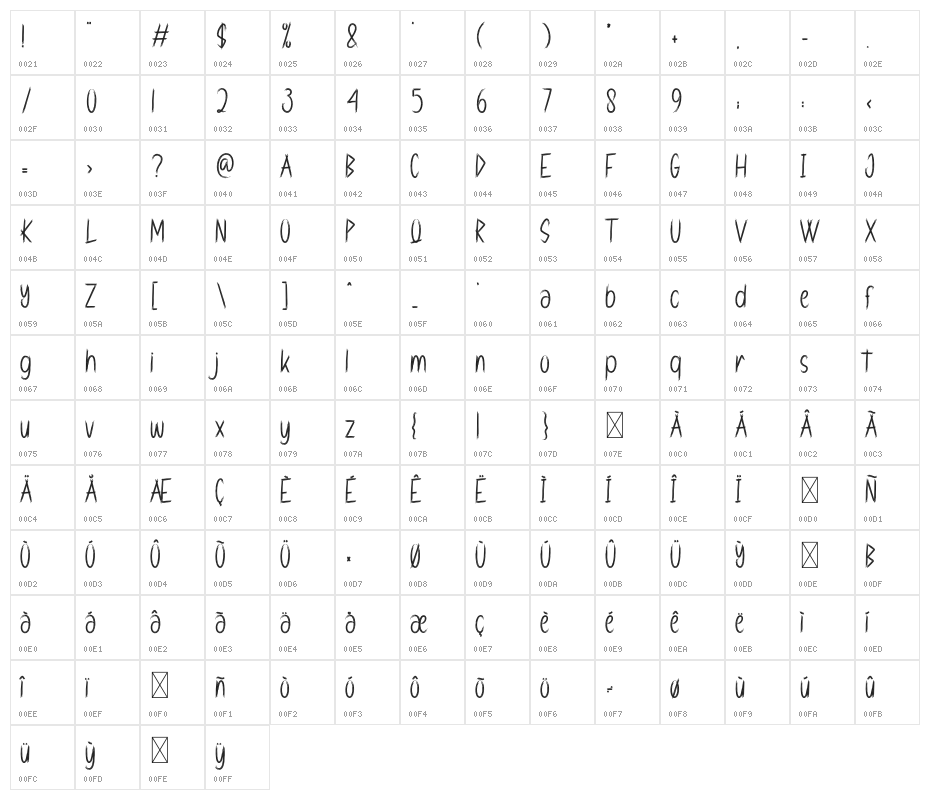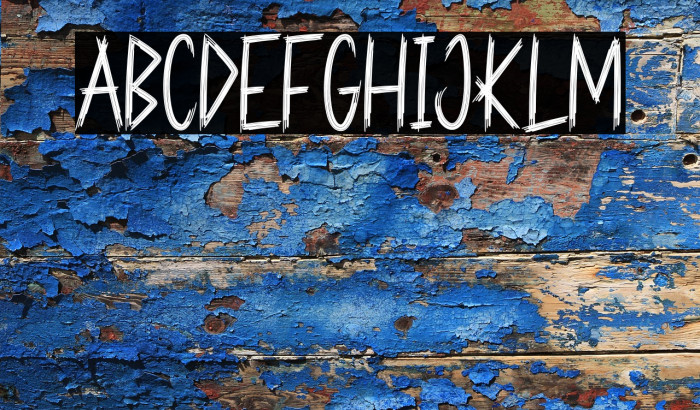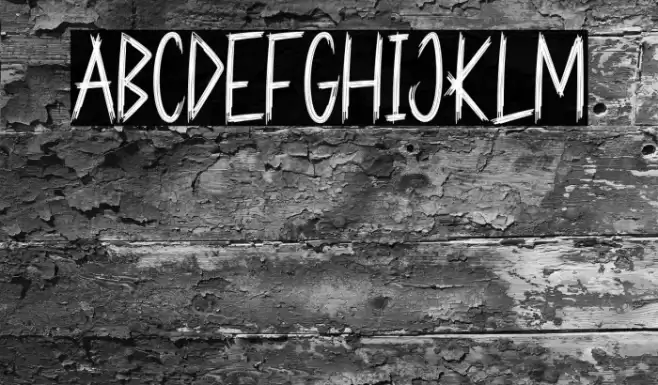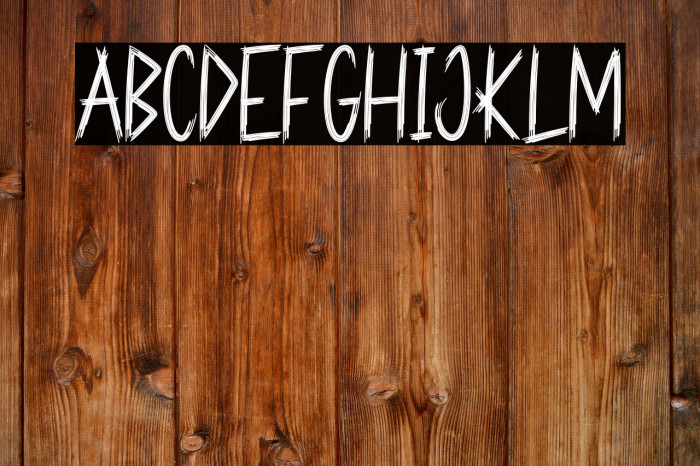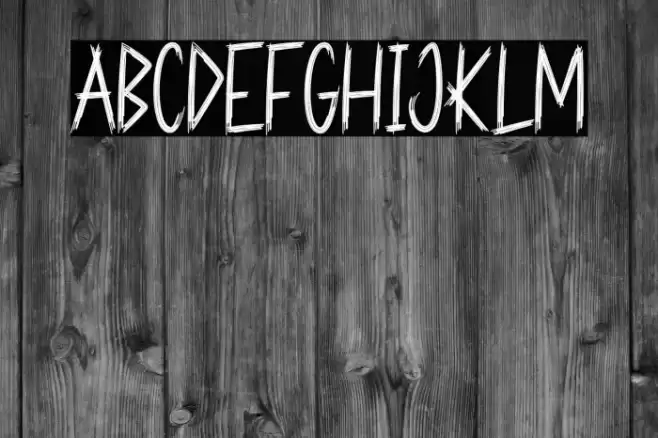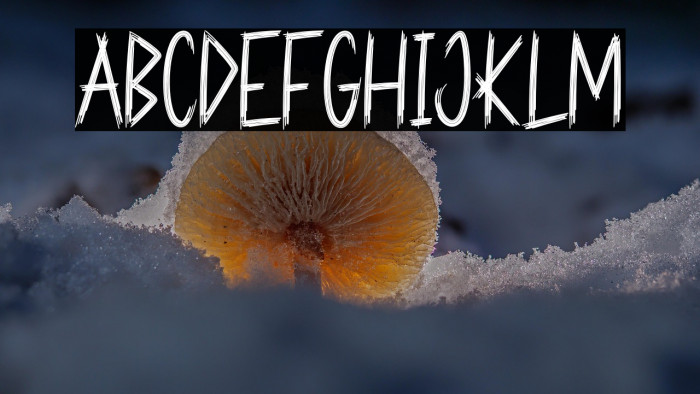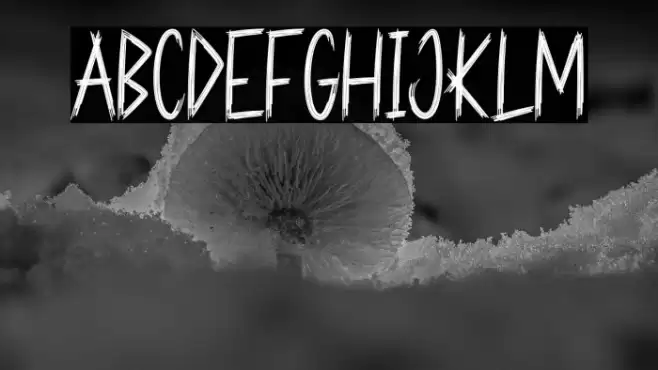
Haunted Castle Font
Haunted Castle Description
This font exudes a spooky and eerie vibe, reminiscent of haunted houses and ghostly tales. The letters are jagged and uneven, giving an impression of being hand-drawn with a shaky hand. The strokes are irregular, with some parts thicker than others, adding to the unsettling feel. The overall appearance is both playful and unsettling, making it perfect for Halloween-themed designs or anything that requires a touch of the macabre. The numbers and special characters maintain the same style, ensuring consistency across all text elements.
| Proposed Projects | Ideal for Halloween invitations, horror movie posters, themed party decorations, and spooky event flyers. |